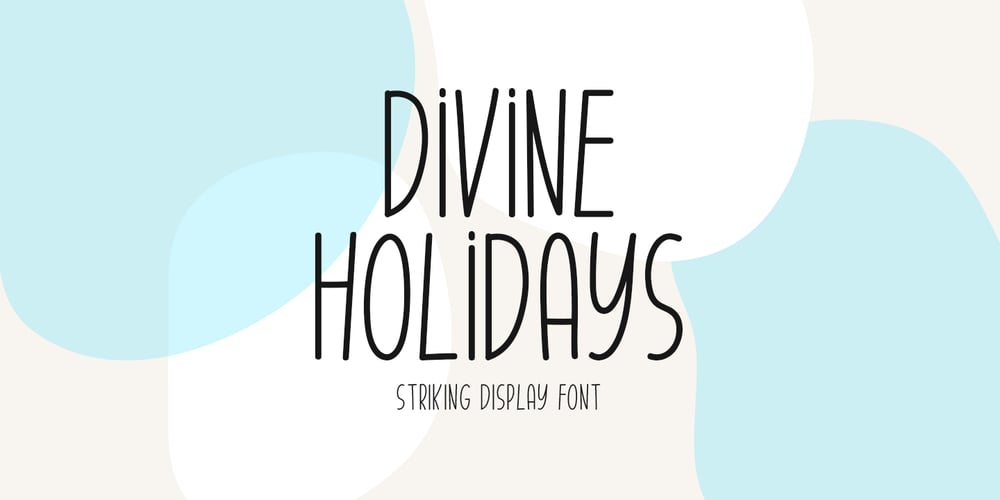
Divine Holidays
Divine Holidays font
Divine Holidays Font Family was designed by Md Shohail Bhuian and published by Seemly Fonts. Divine Holidays contains 1 styles and family package options. Divine Holidays is a striking display font. It can easily be matched to an incredibly large set of projects, so add it to your creative ideas and notice how it makes them stand out!